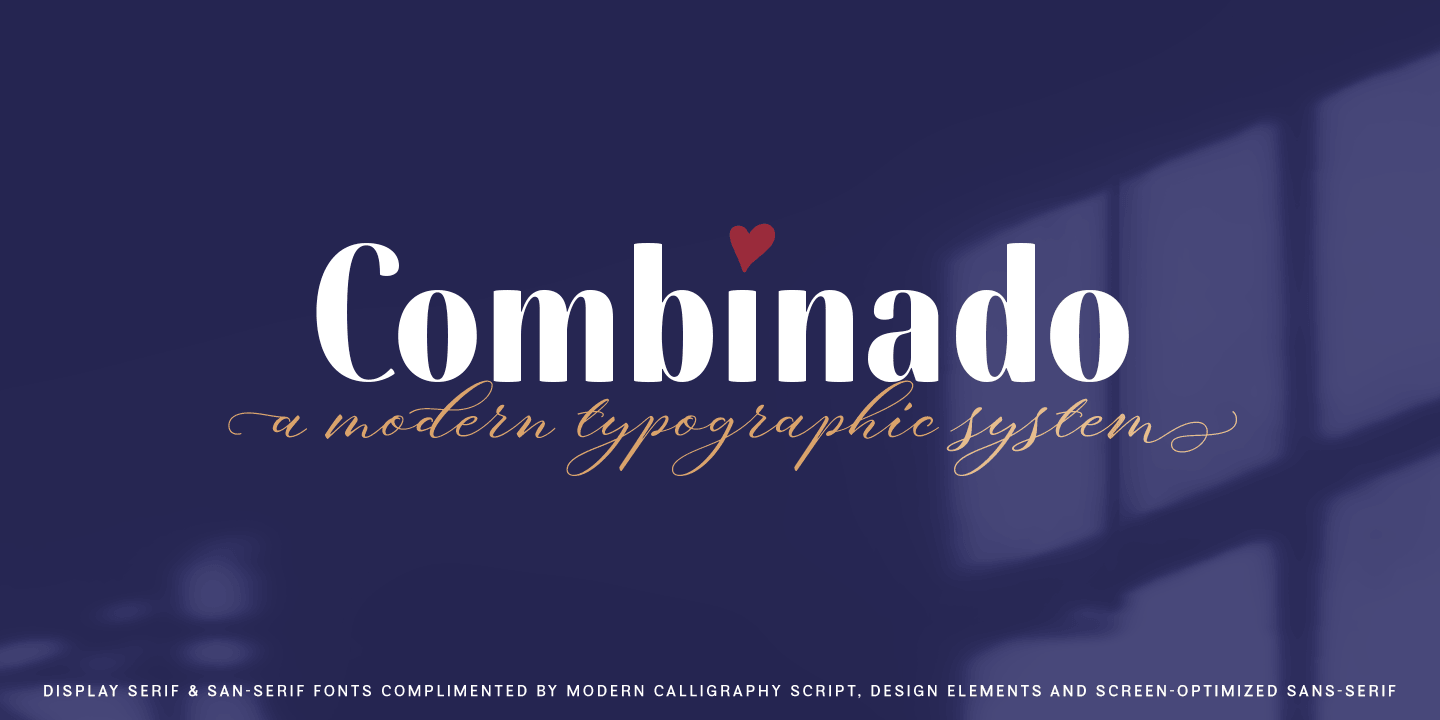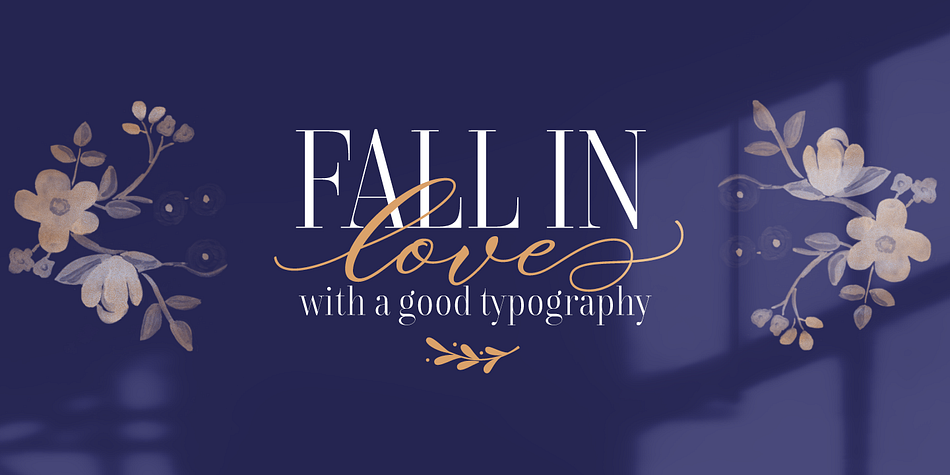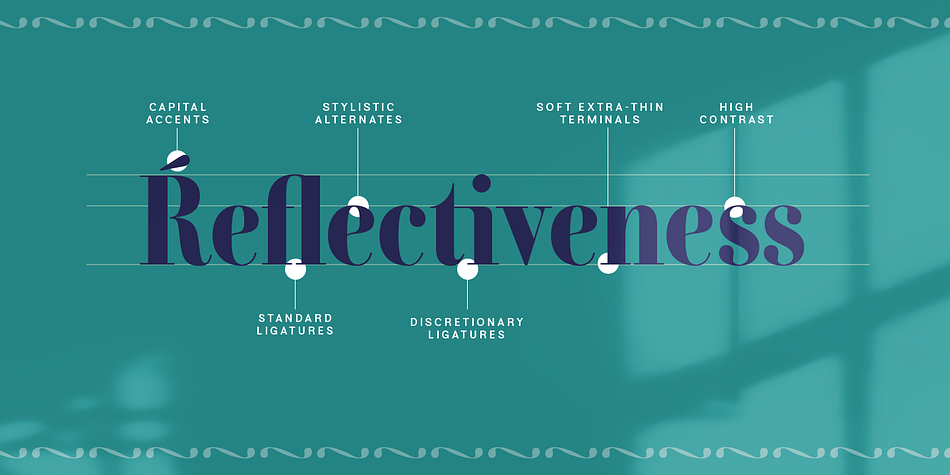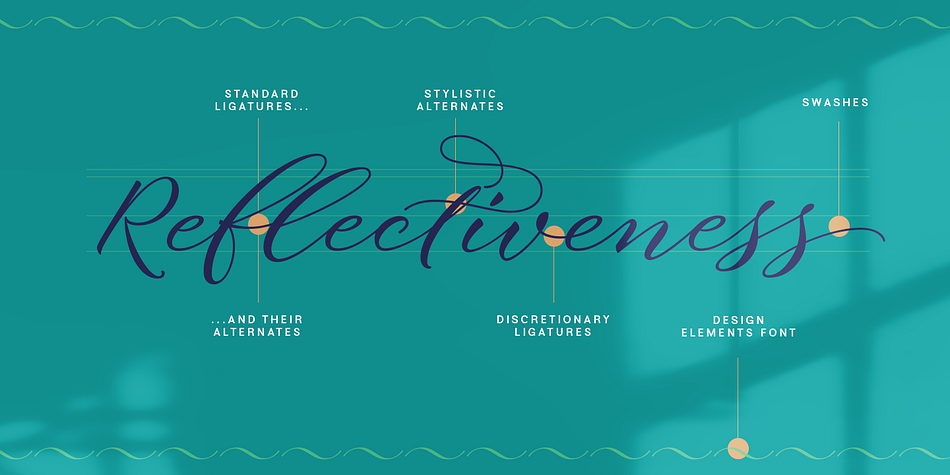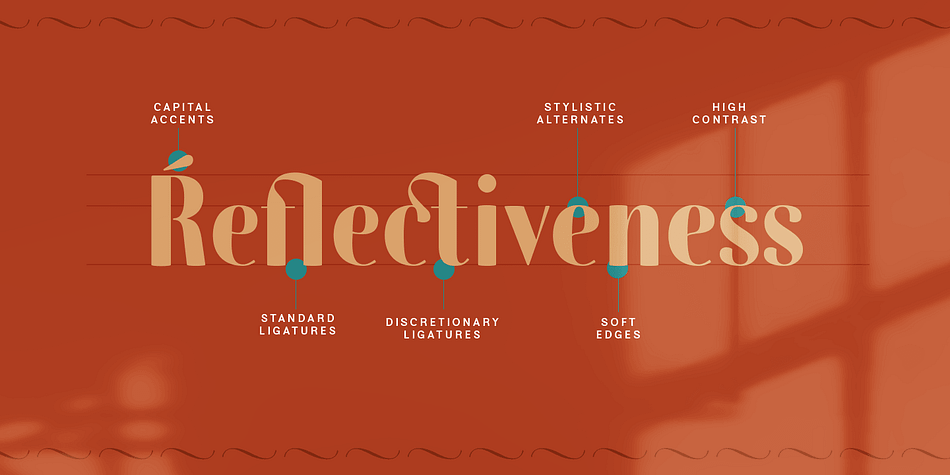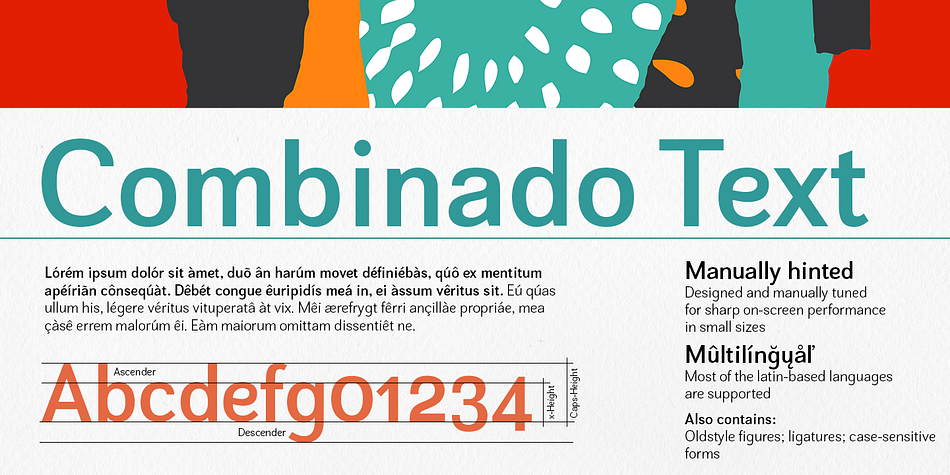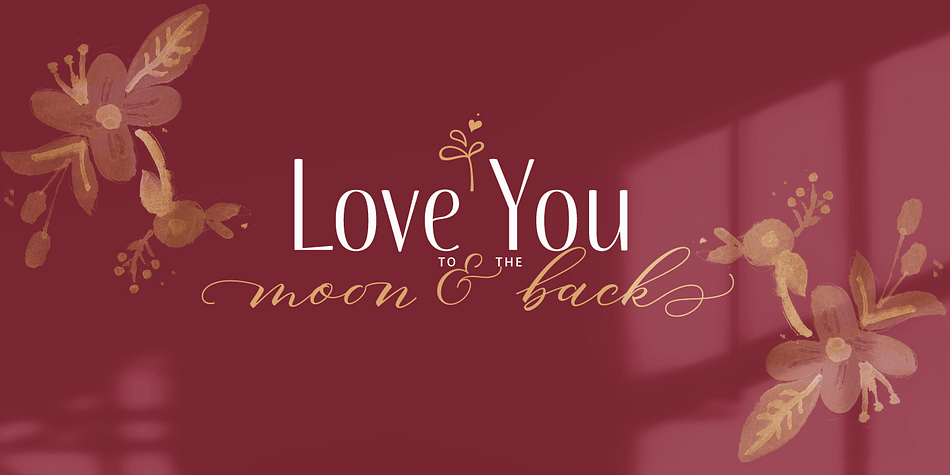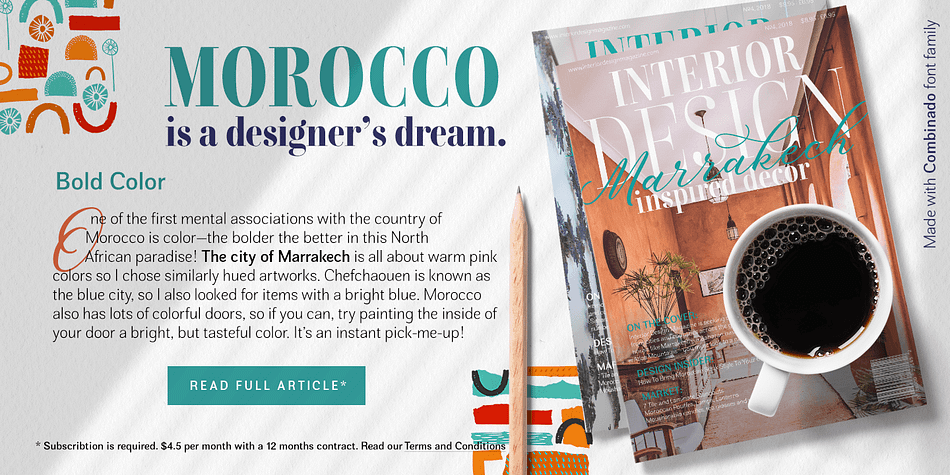
Designed by Elena Genova, Combinado is a multiple classification font family. This typeface has ten styles and was published by My Creative Land.
Please welcome a new Combinado Font Family that has it all: elegant display sans serif and serif fonts in three weights each; a modern calligraphy script that looks beautiful next to them; a sans serif font designed specifically for the best on-screen reading experience, which comes in two weights (for now! more to come); and the last but not least - Design Elements font that has more than 70 elements to compliment your designs.
This font family is very universal and you can use it everywhere: websites, Instagram ads, magazines, books, cards and invitation designs, as well as in all possible personal design project that do not fit in any of the listed categories!
Foundry | My Creative Land |
Styles | Display Sans, Display Serif, Sans Serif, Script, Dingbat |
Designer | Elena Genova |